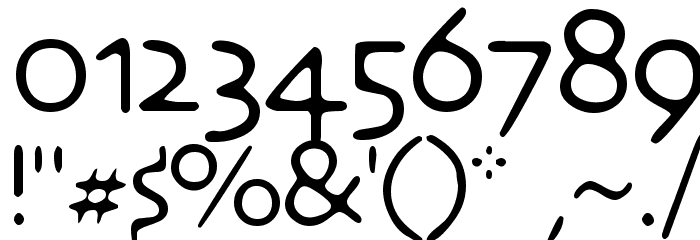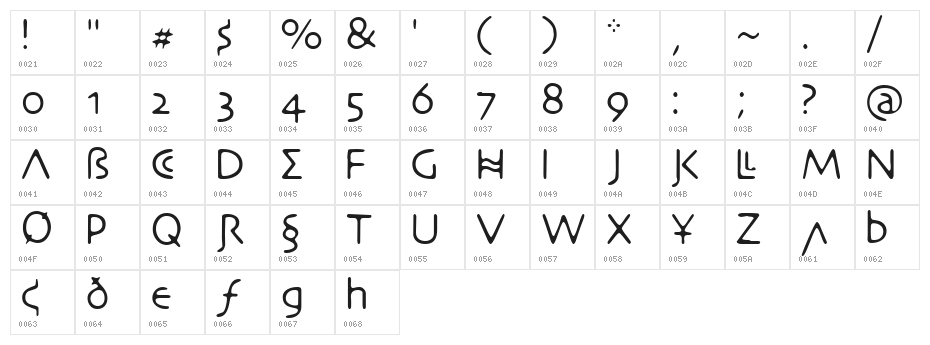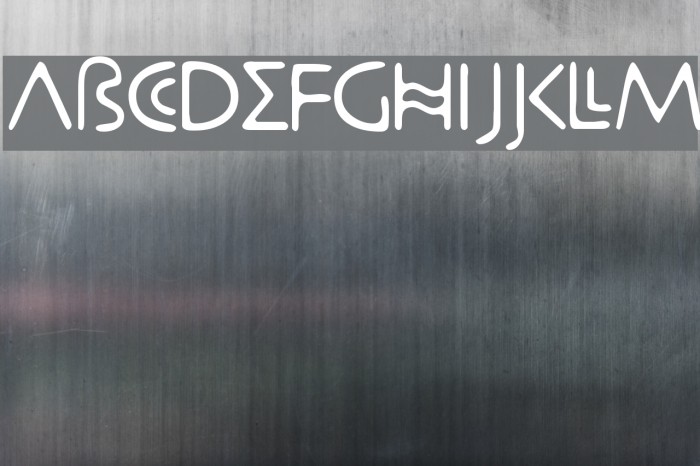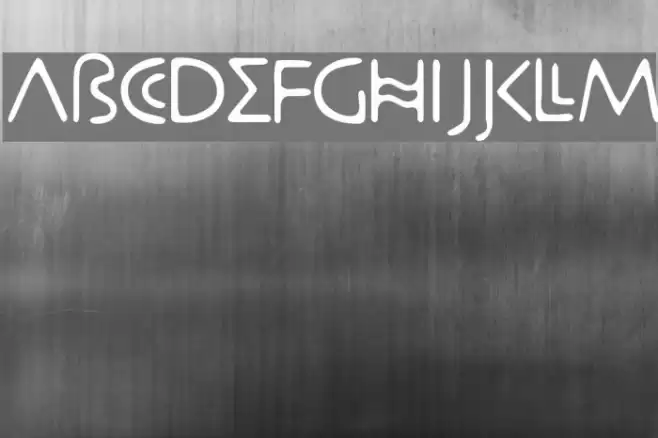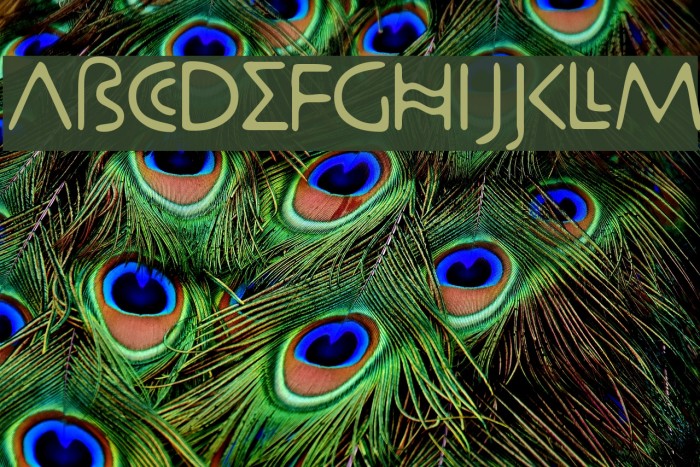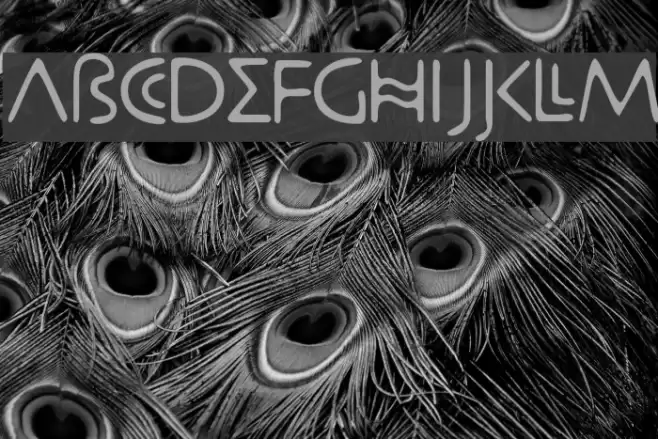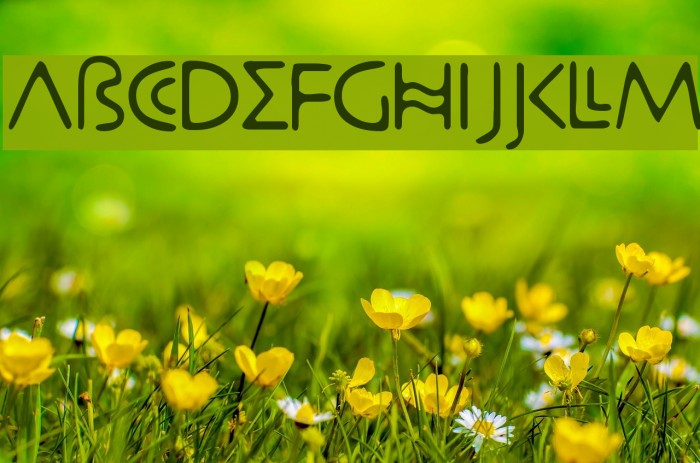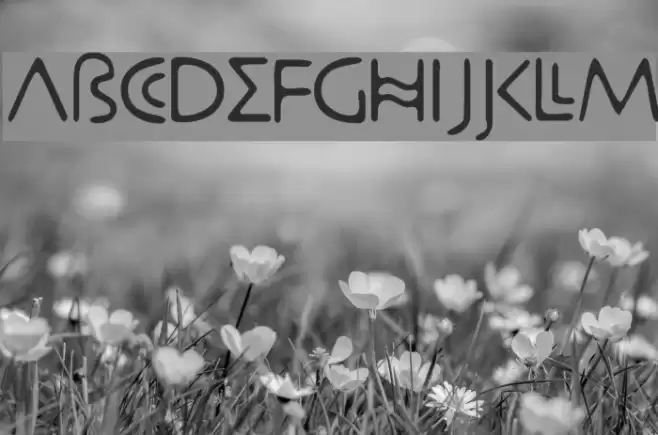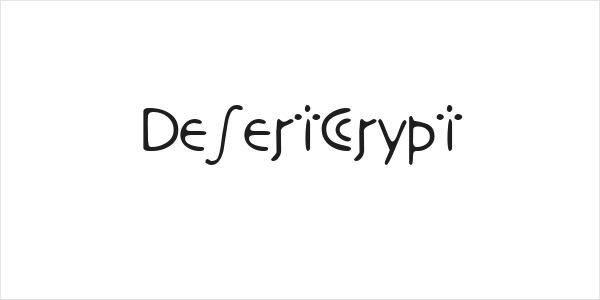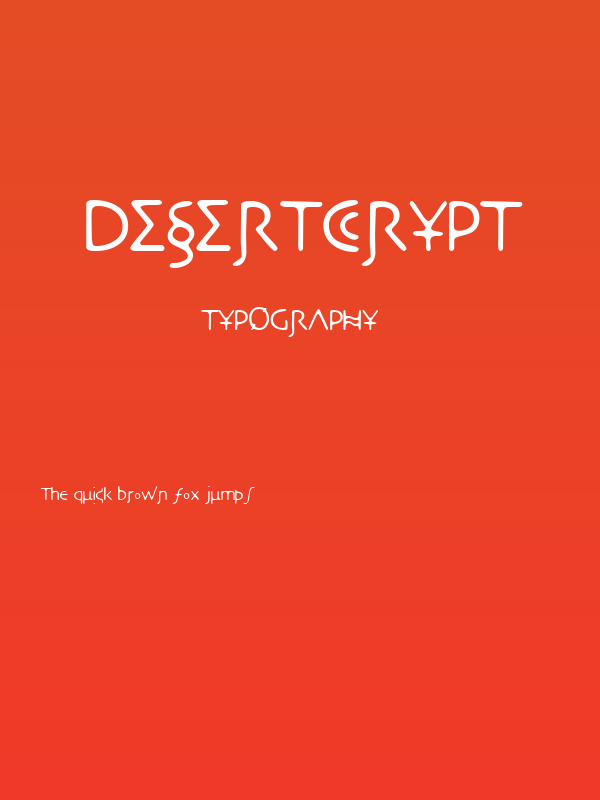
DesertCrypt Font
This font features a unique and playful design with a distinctively quirky style. The characters are crafted with a mix of curves and sharp angles, giving them an almost cryptic appearance. The uppercase letters exhibit a bold and confident stance, while the lowercase letters maintain a more whimsical and flowing form. The numerals are consistent with the overall style, incorporating similar curves and angles. Special characters are creatively designed, adding to the font's distinctive charm. This font's overall aesthetic is both modern and artistic, making it stand out in any design project.
| Proposed Projects | Ideal for creative projects such as posters, album covers, and branding materials that require a unique and artistic touch. |